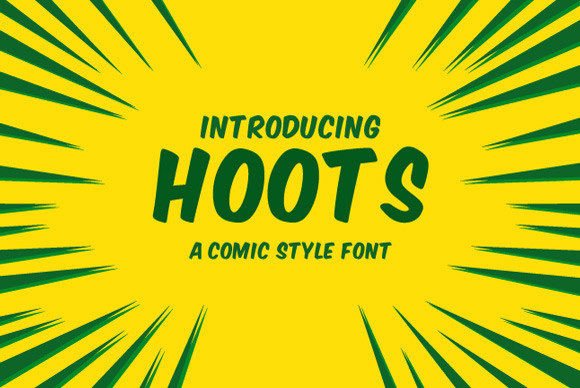
Attention-grabbing designs are closer than you think with Hoots Font – the whimsical display font crafted to make your projects burst with personality! Its bold and jolly strokes dance across your screens like a playful melody, adding a touch of adventure and thrill to your creations.
Dive into the world of Hoots and witness your comic books, graphic novels, and children's stories come alive. Its spirited nature shines through, capturing the imagination of readers and captivating their attention. But Hoots's charm doesn't stop there.
Step into the realm of advertising and branding, where Hoots Font commands attention with its bold presence. Its strokes, thick as a comic book hero's resolve, will etch your brand into the minds of your audience, leaving an unforgettable mark.
Unleash your creativity with Hoots Font – the versatile companion that complements any design. Its playful spirit adds a dash of whimsy to product packaging, while its commanding presence elevates social media graphics to new heights.
Headlines that demand attention? Hoots Font has got you covered. Its playful yet assertive nature grabs readers by the eyeballs, ensuring your message resonates and leaves a lasting echo.
Join the design adventure with Hoots Font – the ultimate font for captivating creations that spark joy, ignite imagination, and leave an unforgettable impression. Get ready to watch your designs soar!